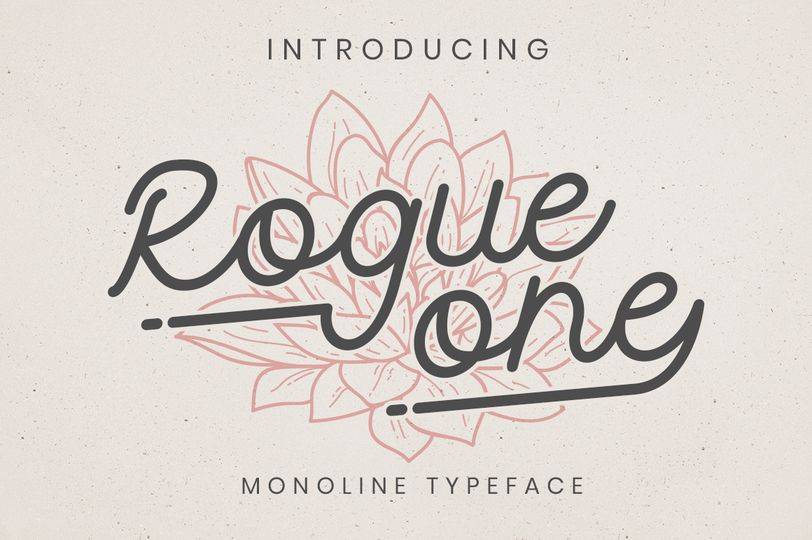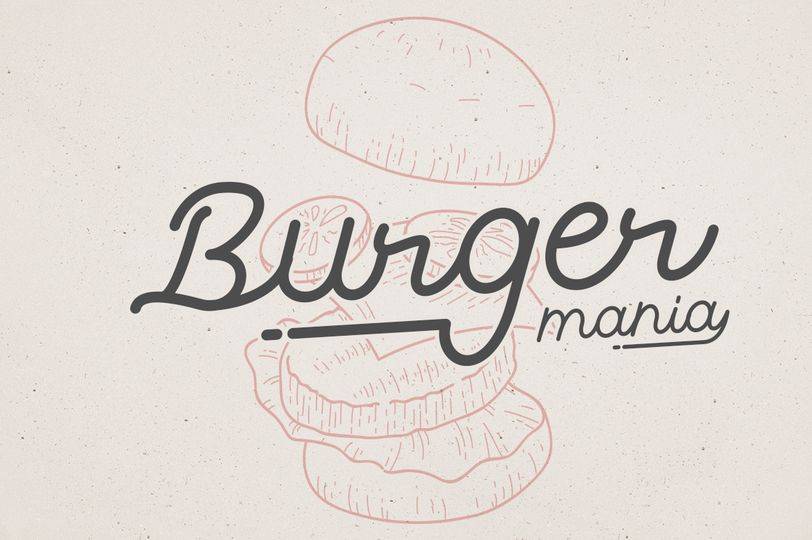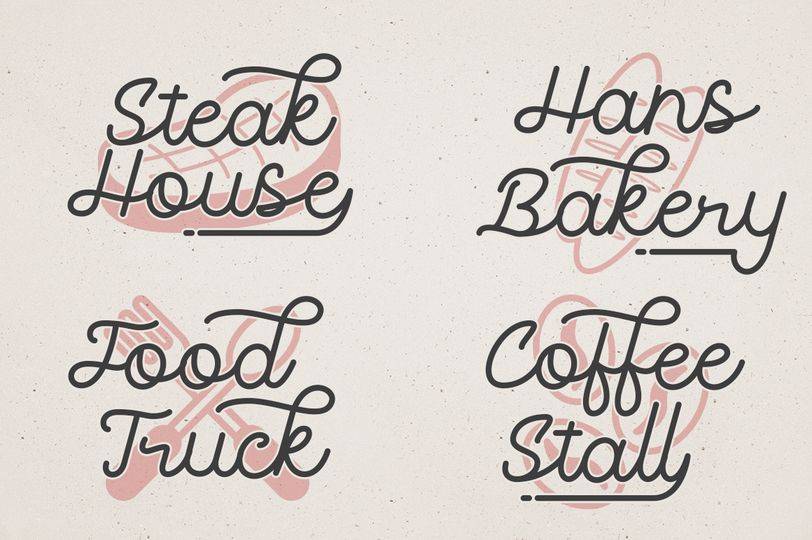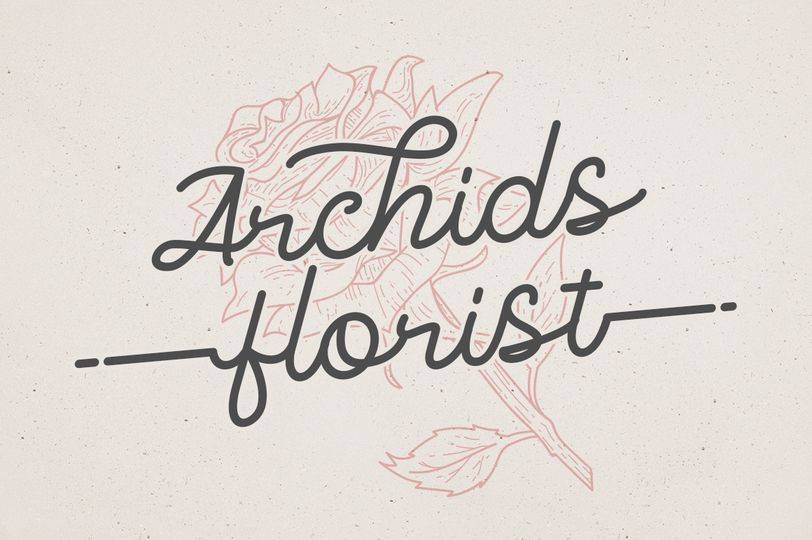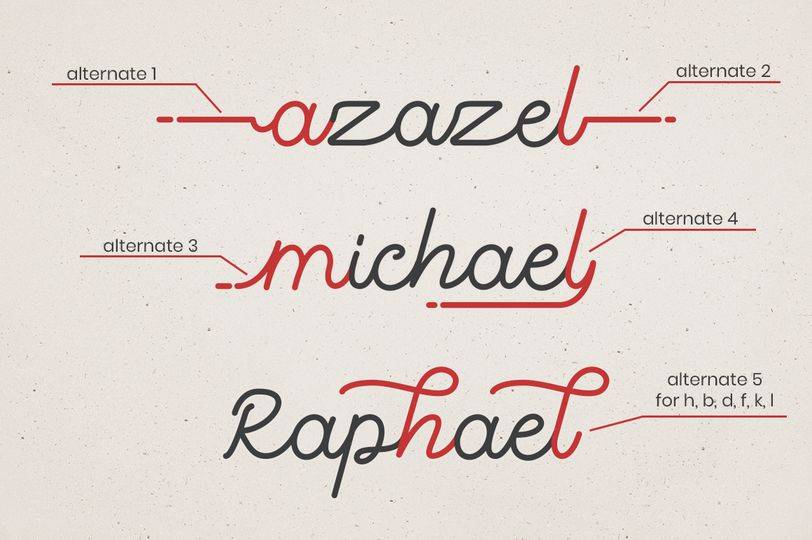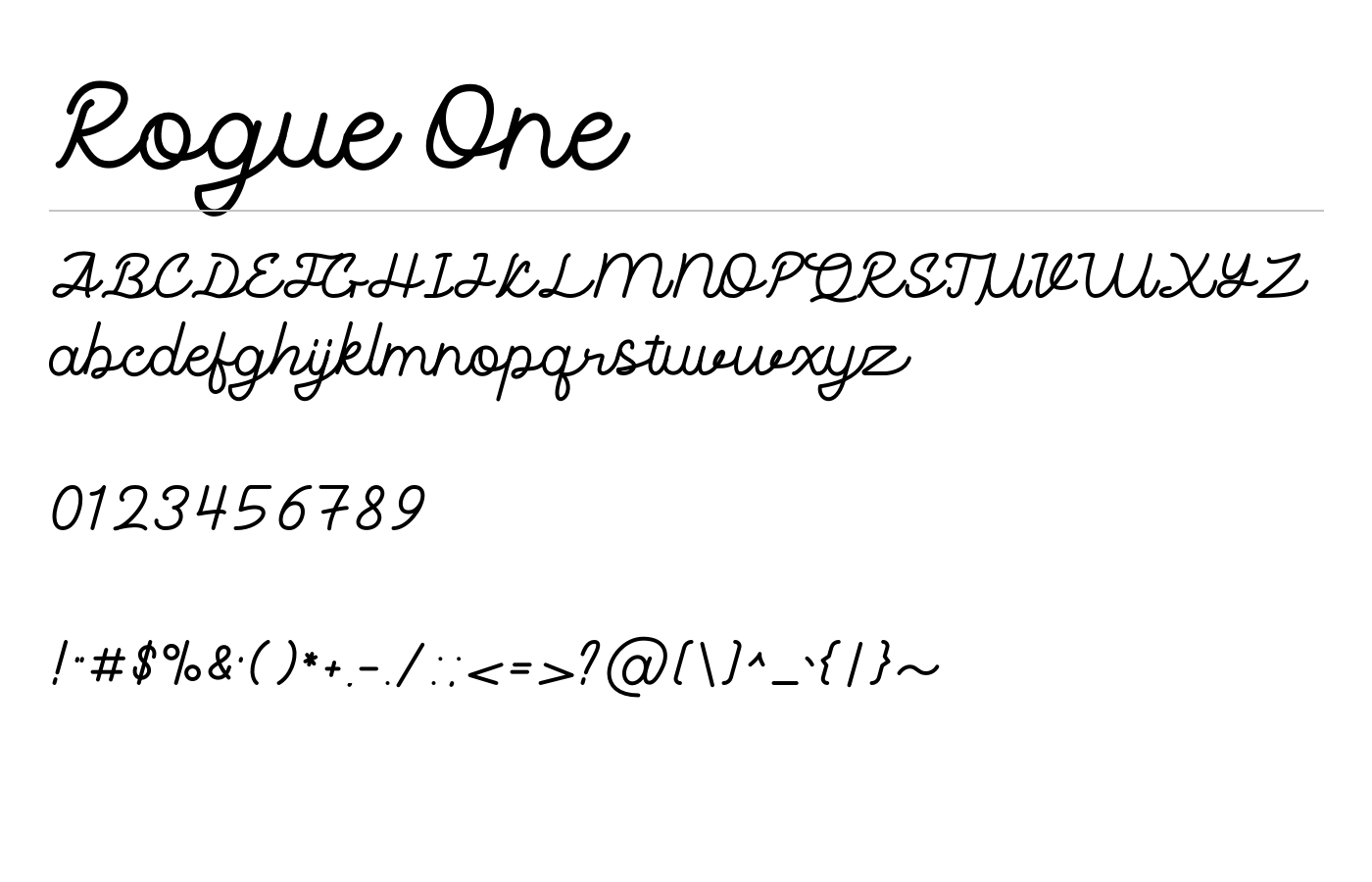
Rogue One is a light, elegant script font characterized by its smooth, flowing strokes and a moderate x-height that lends it clarity and readability. Its graceful letterforms feature a consistent stroke weight with gentle curves and distinctive loops, making it feel personable and stylish without being overly ornate. This font works well for invitations, branding, and creative projects that seek a blend of sophistication and approachability.
| Font family | Rogue One Font |
| Release date | 2019-07-23 |
| Designer | Fadli Ramadhan Iskandar |